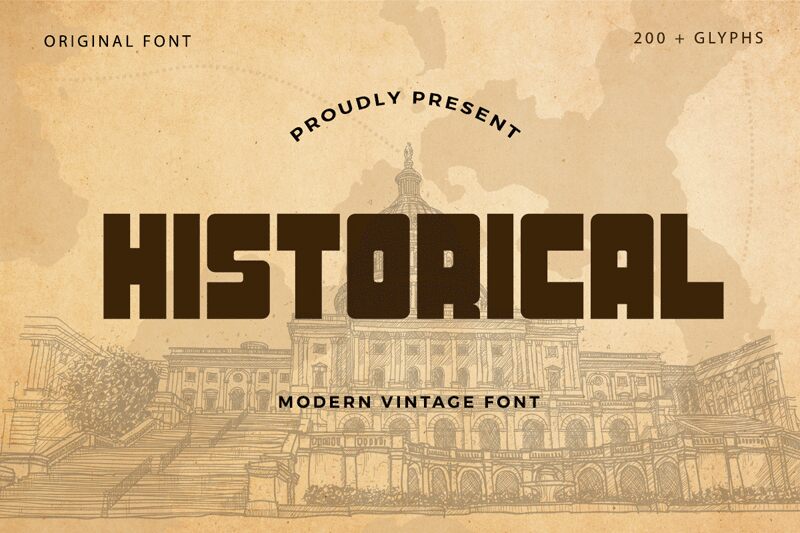
Historical font by Kong Font is a bold retro display typeface whose characters spell out strength, dominance, and sophistication. The condensed font presents an inspiring structural appearance that conveys seriousness and authenticity with its machine-like utilitarian form. Its geometric forms blend to produce a unique style, one worthy of any project that needs a special visual twist.
This free display font has endless applicable uses. Use it in headlines, posters, magazines covers, books covers, film titles design ideas. And whenever you’re working on packaging related projects (bottles for example), Historical can be used as the general brand font or just on the label itself.